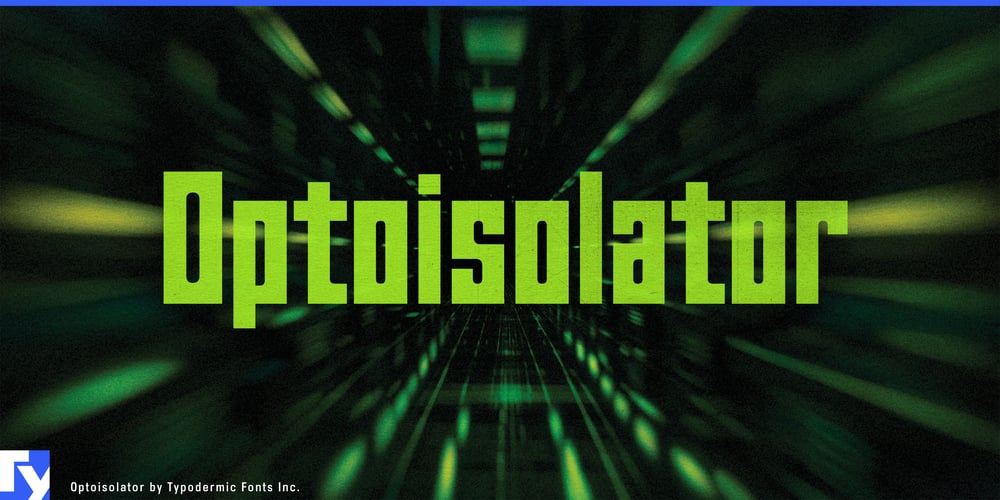
Optoisolator
Optoisolator font
Optoisolator Font Family was designed by Ray Larabie and published by Typodermic. Optoisolator contains 1 styles and family package options. Optoisolator: where circuitry meets typography. This cutting-edge typeface from Typodermic Fonts fuses the stark precision of electronic components with the fluid aesthetics of modern design. Its boxy exterior, punctuated by meticulously crafted interior curves and striking negative spaces, embodies the essence of high-tech sophistication.In headlines and titles, Optoisolator’s compact form factor truly comes alive. The high x-height of its lowercase letters, coupled with succinct descenders, allows for bold, tight compositions that demand attention. The regular, precise spacing evokes the rhythmic cadence of a drum machine, infusing your visual communication with a distinctly technical beat. Optoisolator is the catalyst for electrifying design. It’s the go-to choice for designers pushing the boundaries of visual communication, whether crafting headlines for cutting-edge editorials, eye-catching advertisements, or sleek digital interfaces. Its versatility extends beyond the screen, making it equally at home on circuit board-inspired packaging or futuristic event posters.This typeface isn’t just about looks—it’s engineered for broad compatibility. Optoisolator comes fully equipped to handle an extensive range of Latin-based European writing systems. From Afrikaans to Zulu, it accommodates a vast array of languages, ensuring your designs maintain their impact across diverse linguistic landscapes. Whether you’re creating for local markets or international campaigns, Optoisolator provides the linguistic flexibility to keep your message clear and powerful.Ready to amplify your typographic signal? Plug into the power of Optoisolator. Download now and watch as your designs light up with newfound energy and precision.